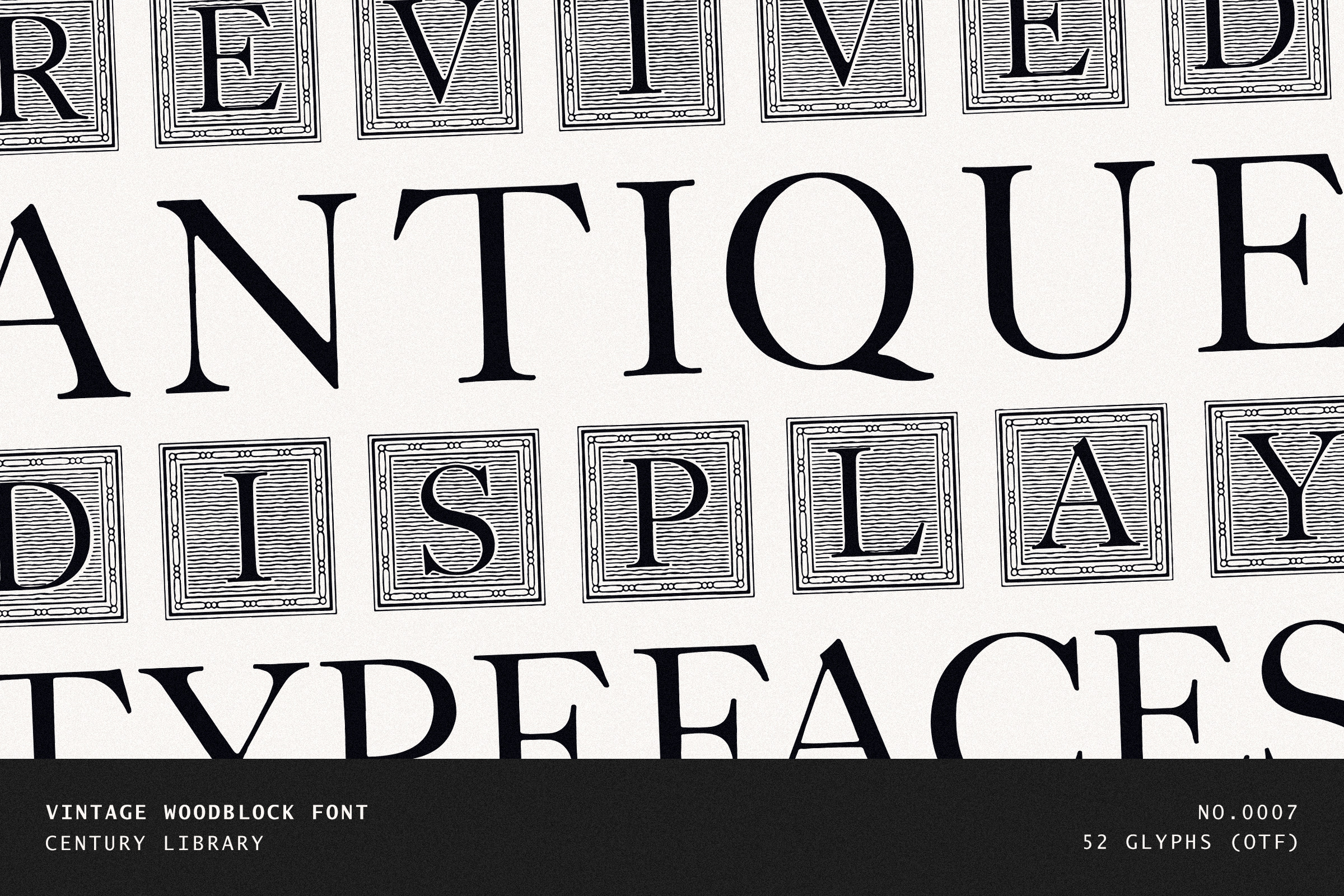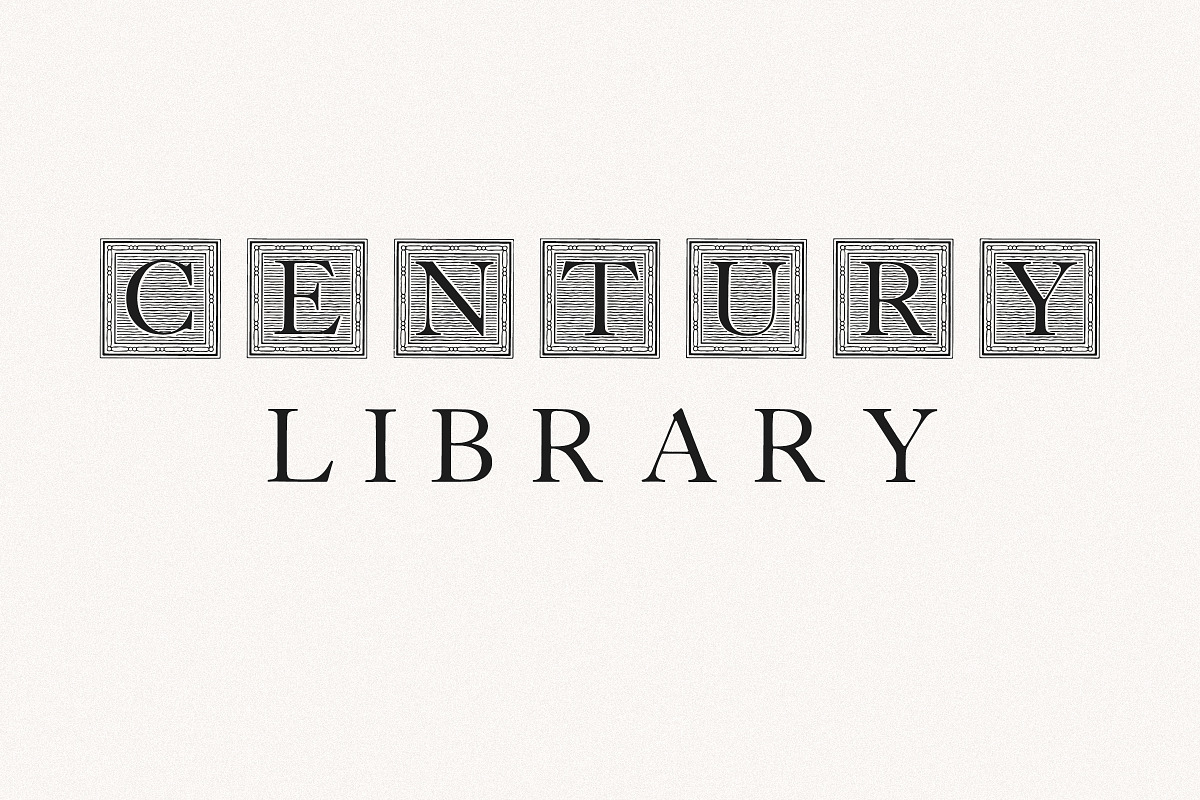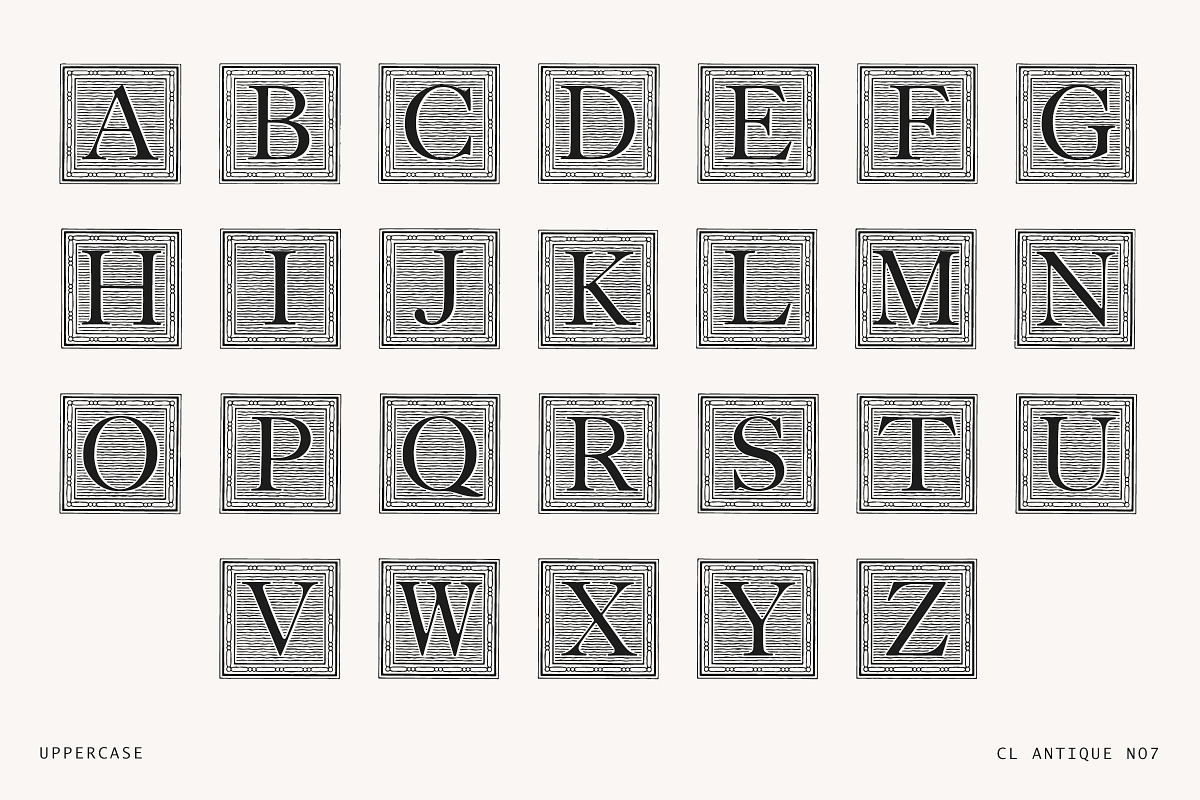
Striped Woodblock Border Font - No07
Say hello to CL Antique No.7 – a beautifully restored Victorian woodblock font featuring refined 19th-century letterforms with engraved detailing.
This font is part of our growing Century Library archive collection, carefully brought back to life from original antique specimens. Every character has been scanned, restored, and converted into a fully functional font, preserving the elegance, texture, and authenticity of the original prints.
What you see is exactly what was once printed - fine serifs, subtle imperfections, and all the charm of historic craftsmanship. The character set is limited to the original source material, so glyph coverage may vary slightly from font to font.
Perfect for vintage-inspired projects, editorial design, branding, posters, and packaging – anywhere you want to add a touch of refined historic elegance.